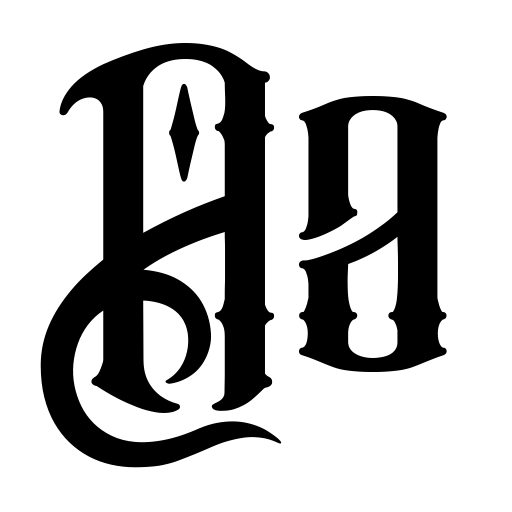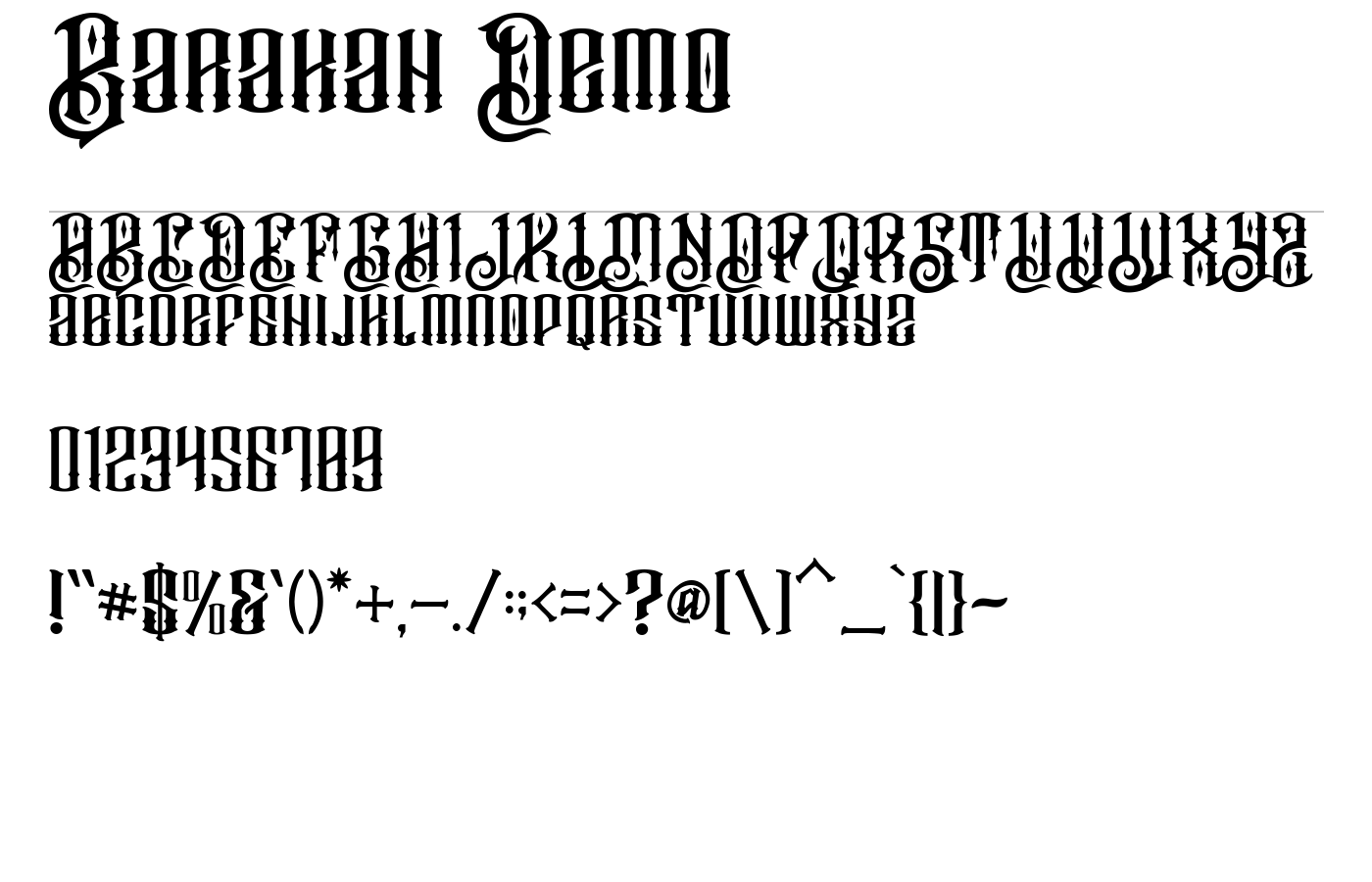
Barakah Demo is a bold, condensed blackletter-style font with intricate, ornamental details that give it a vintage, gothic vibe. Its high contrast strokes and sharp serifs create a dramatic and sophisticated look, making it ideal for headlines, logos, and branding that seek to convey elegance and tradition with a strong visual impact.
Barakah Demo Font
About Barakah Demo Font